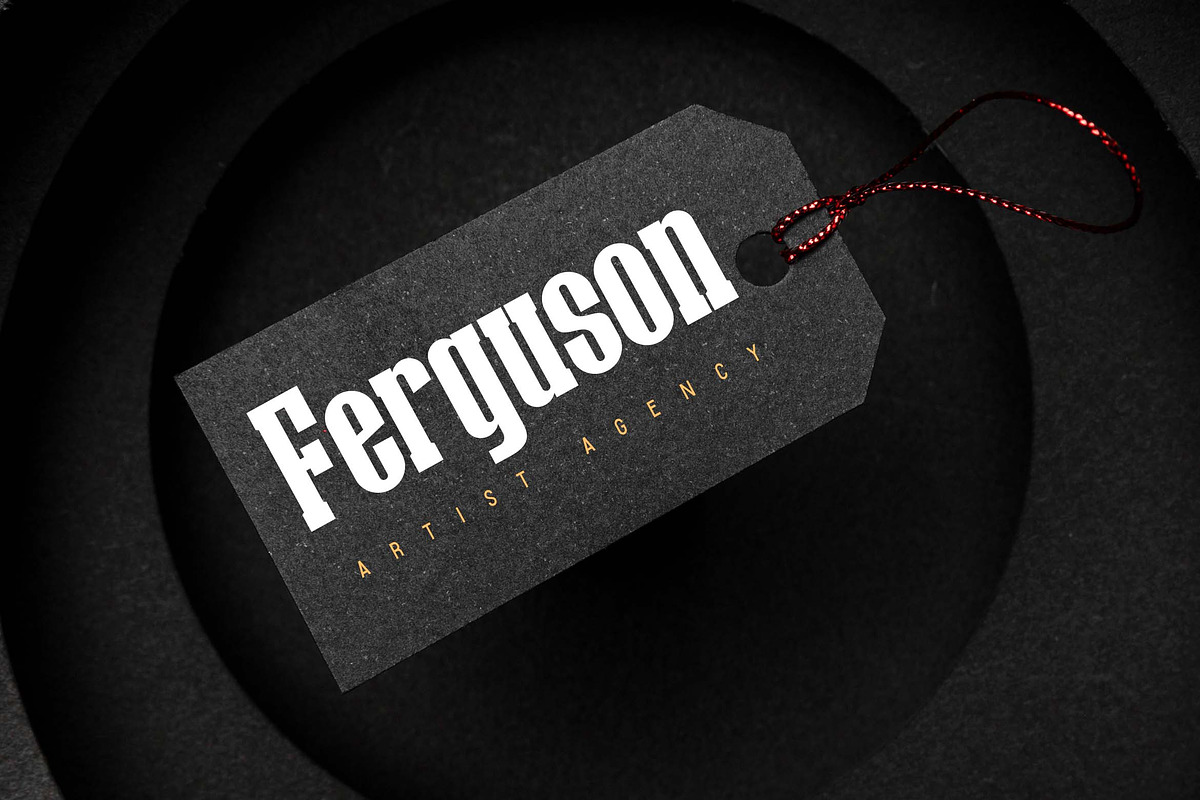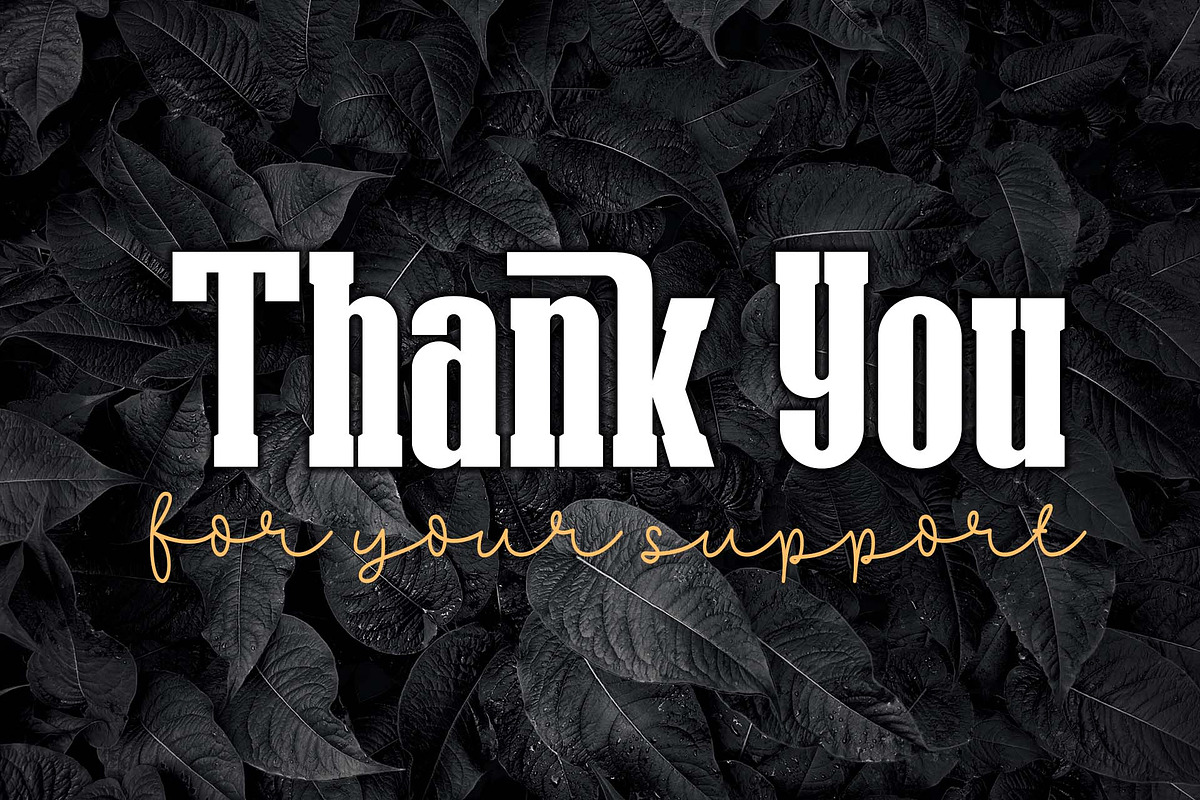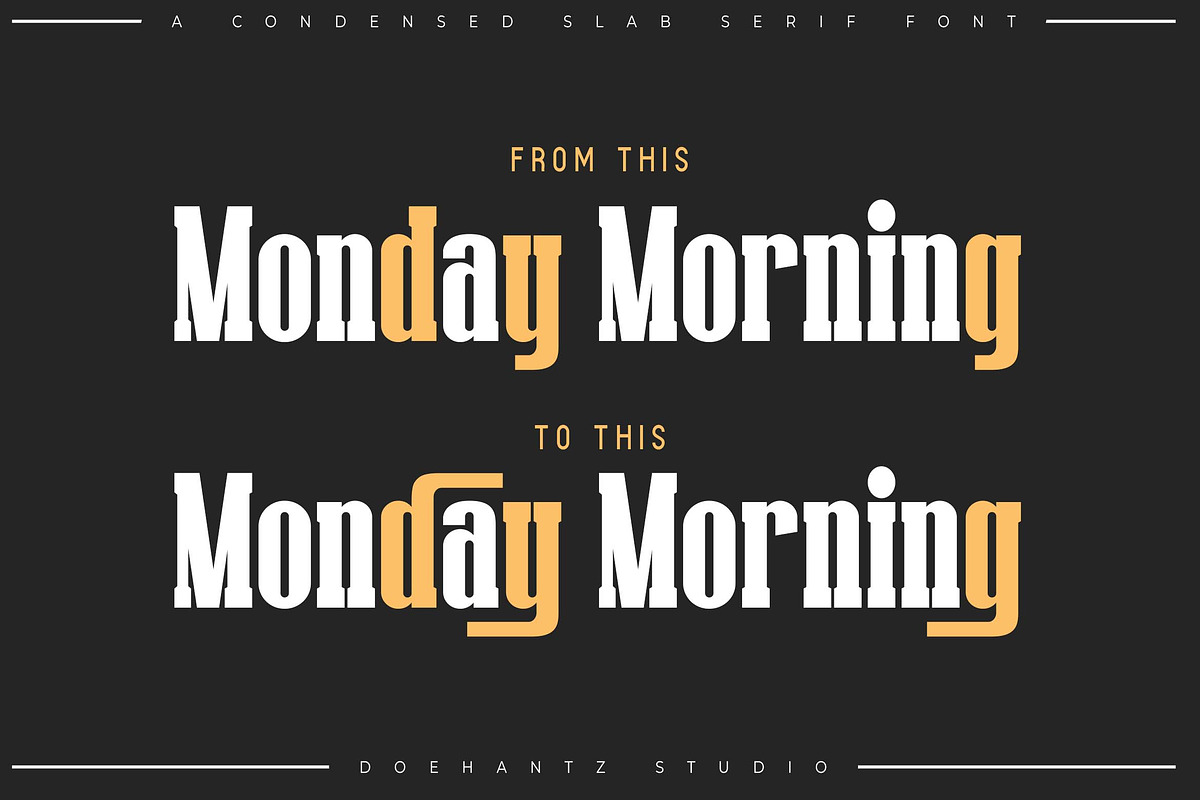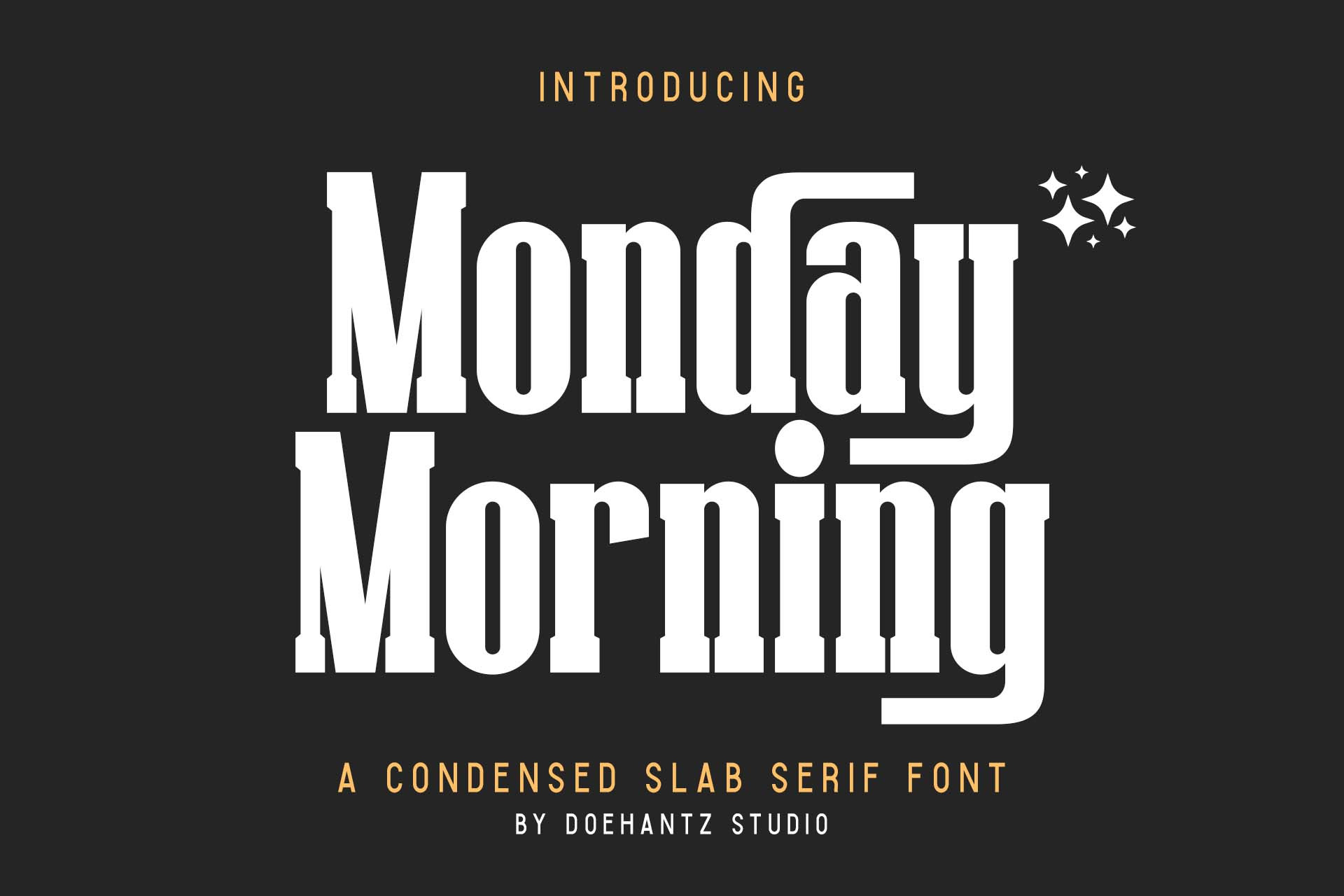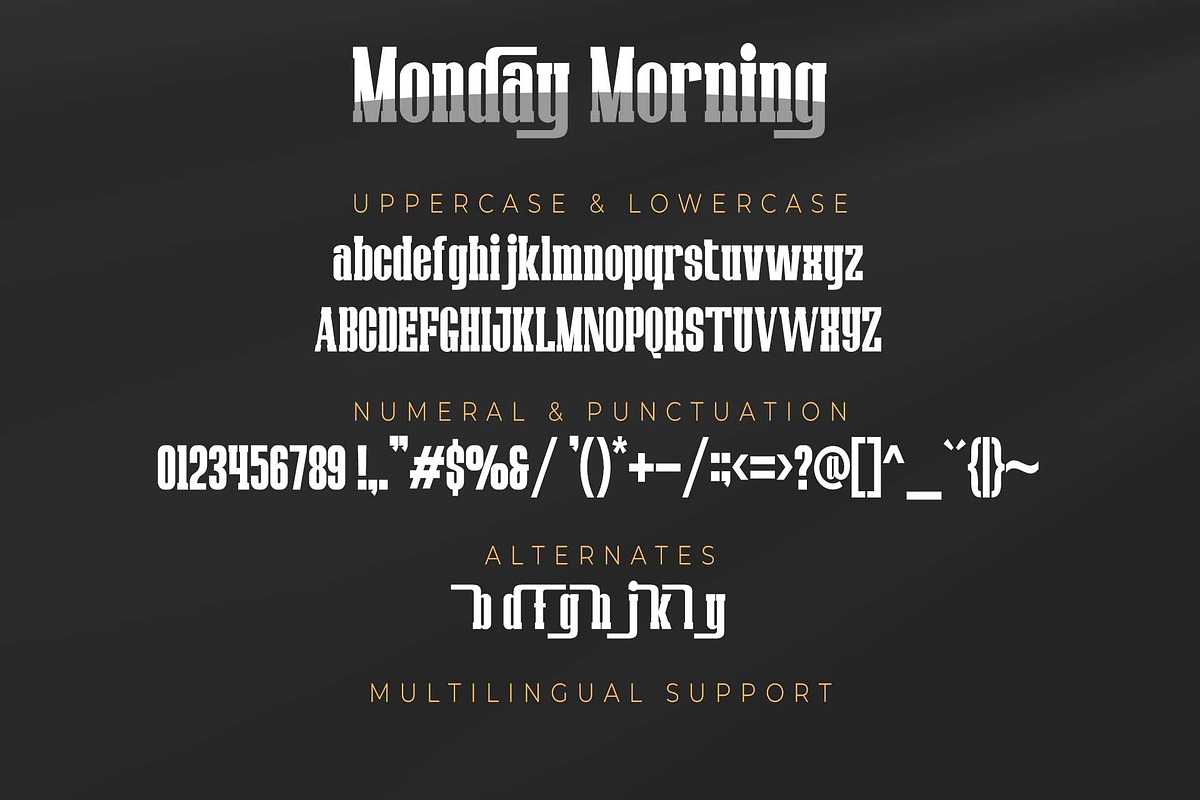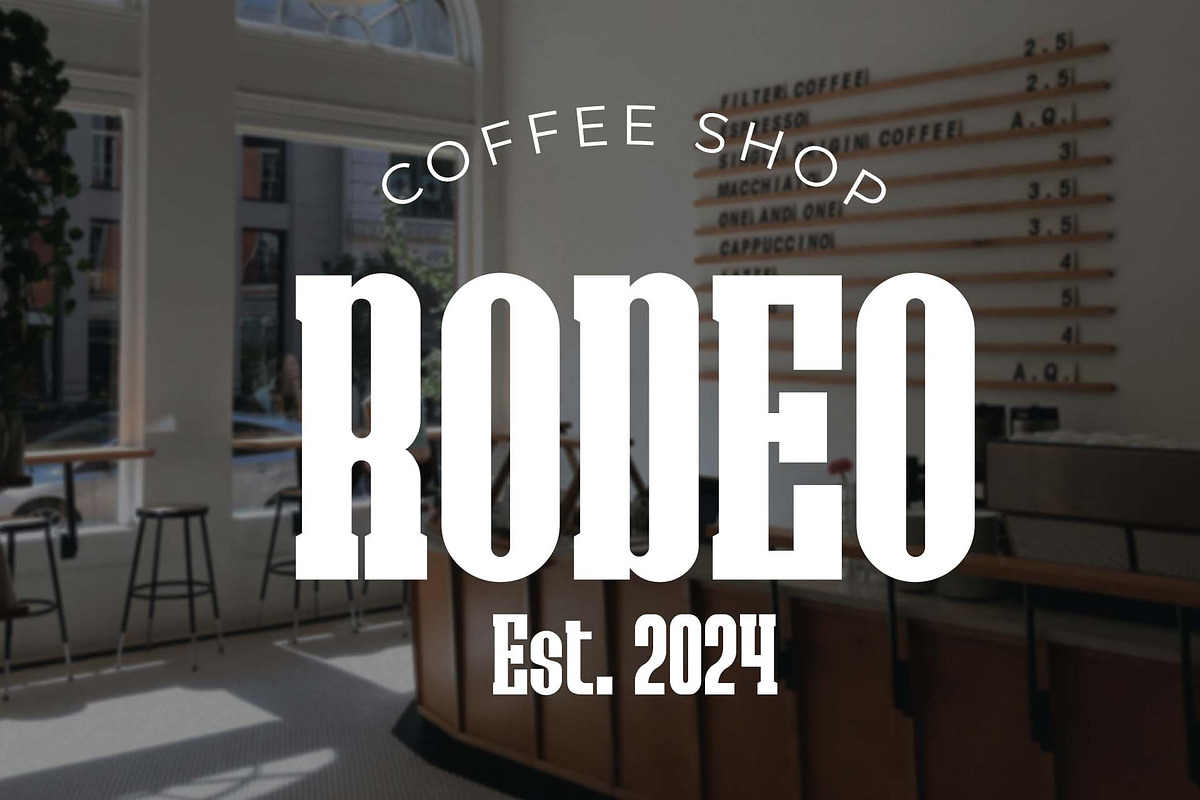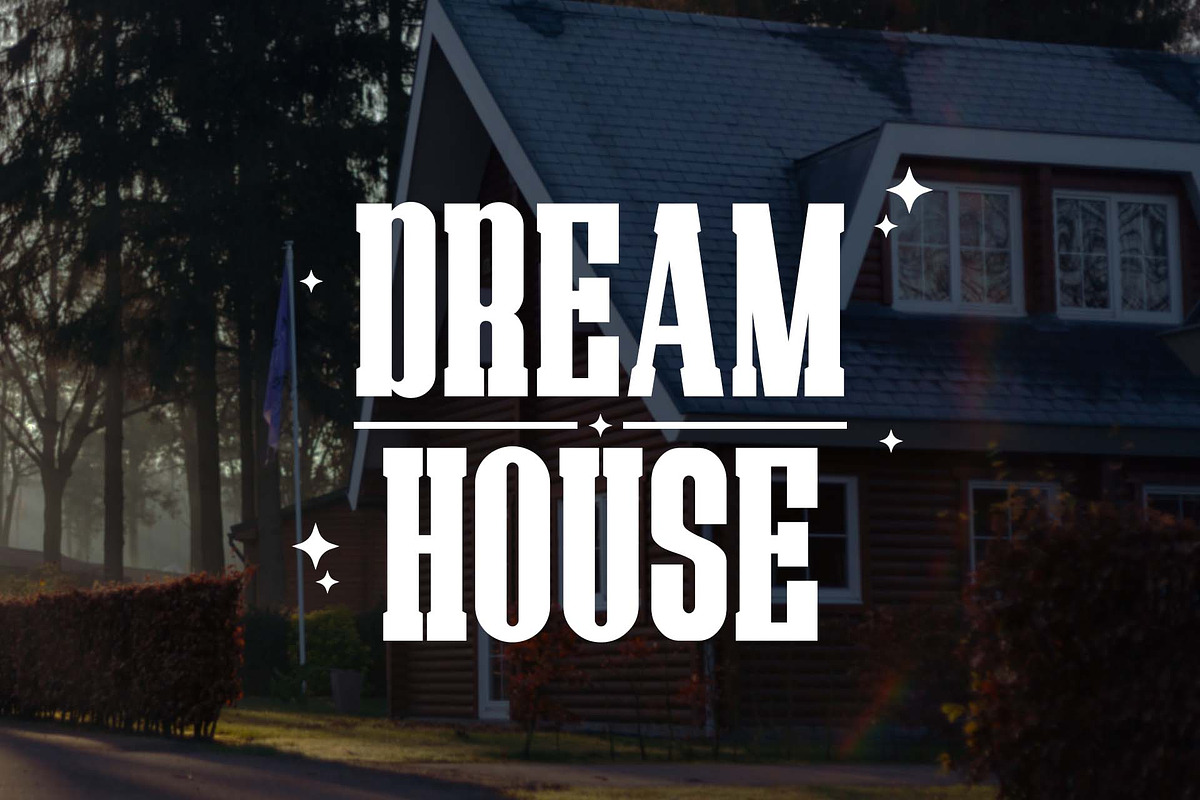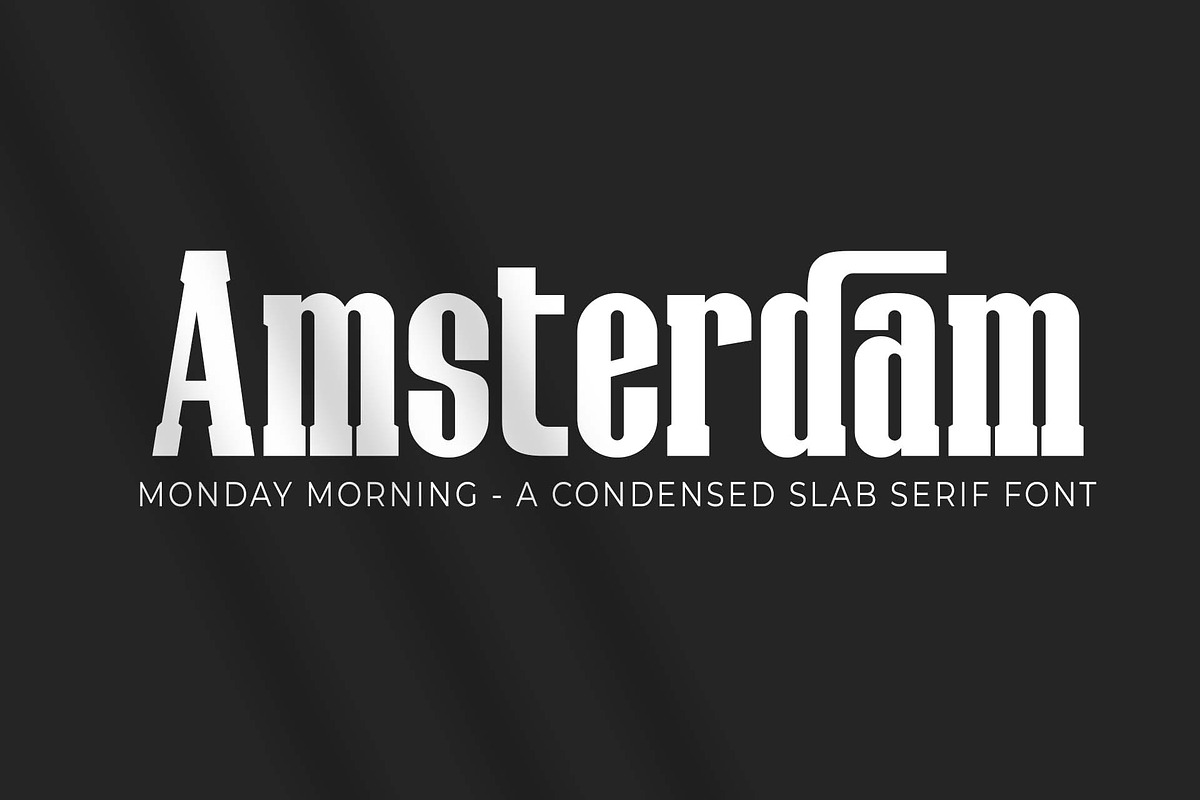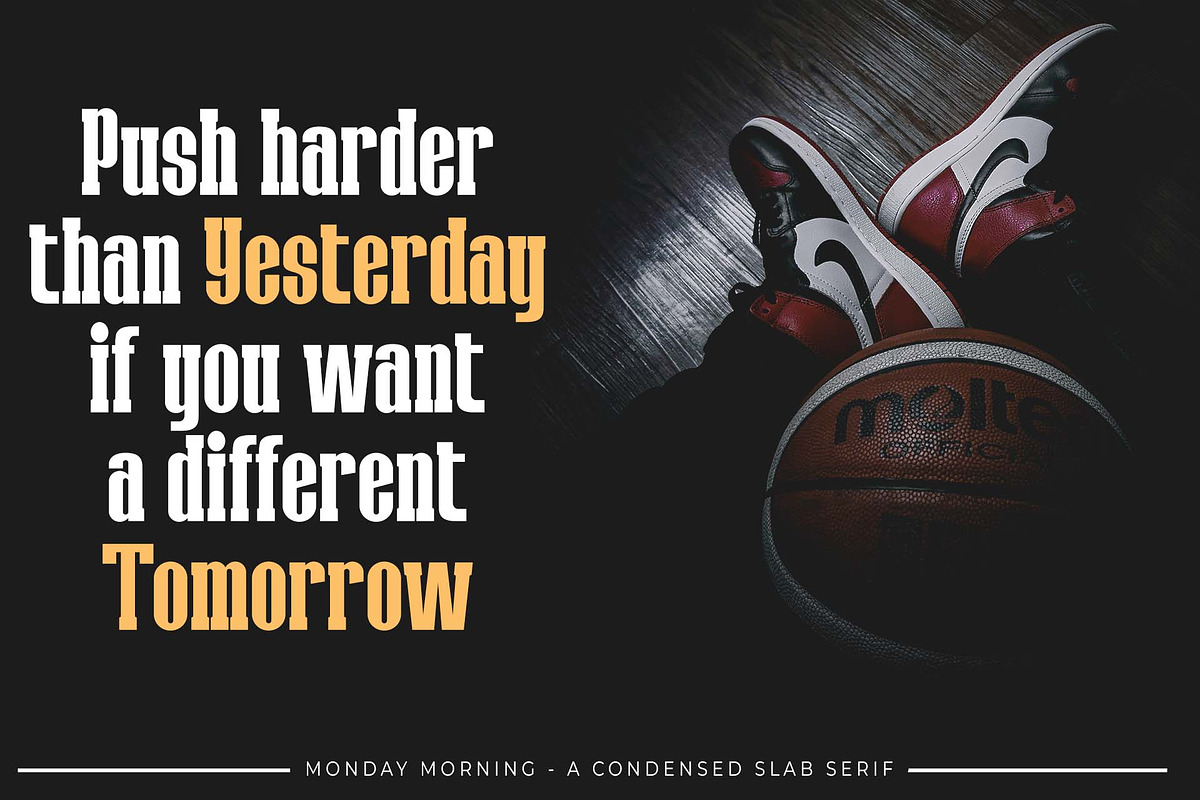
Monday Morning - Slab Serif Font
Introducing our brand new font, Monday Morning, this is A Condensed Slab Serif Font designed by Doehantz Studio.
Monday Morning has made for any professional project branding, such as branding, poster, logotype, promotions, product packaging, magazine, book, etc.
Monday Morning includes uppercase and lowercase, numerals and punctuation, alternates, and multilingual support. This font has a elegance style.